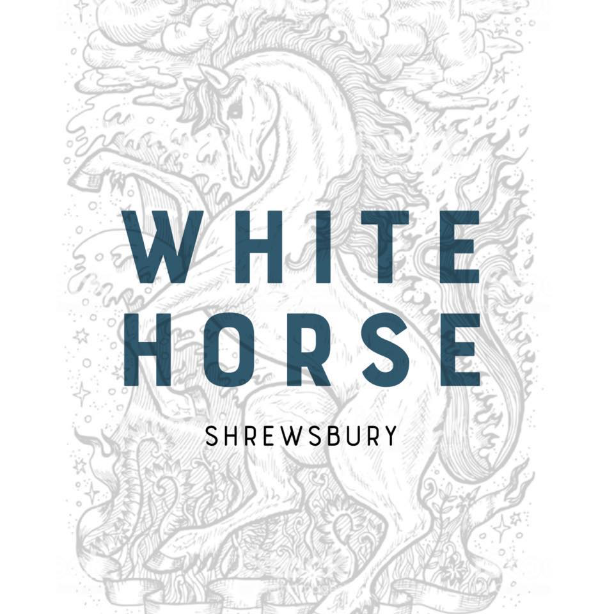
Please could someone help identify the font used for the White Horse wording on the attached?
The metrics and balance on that thing are awful. Just sayin’
I’m sure there’s nothing you can do about it.
Thanks very much for your help! Agreed on the balance of it, but as you say, not sure it’s something we can fix.